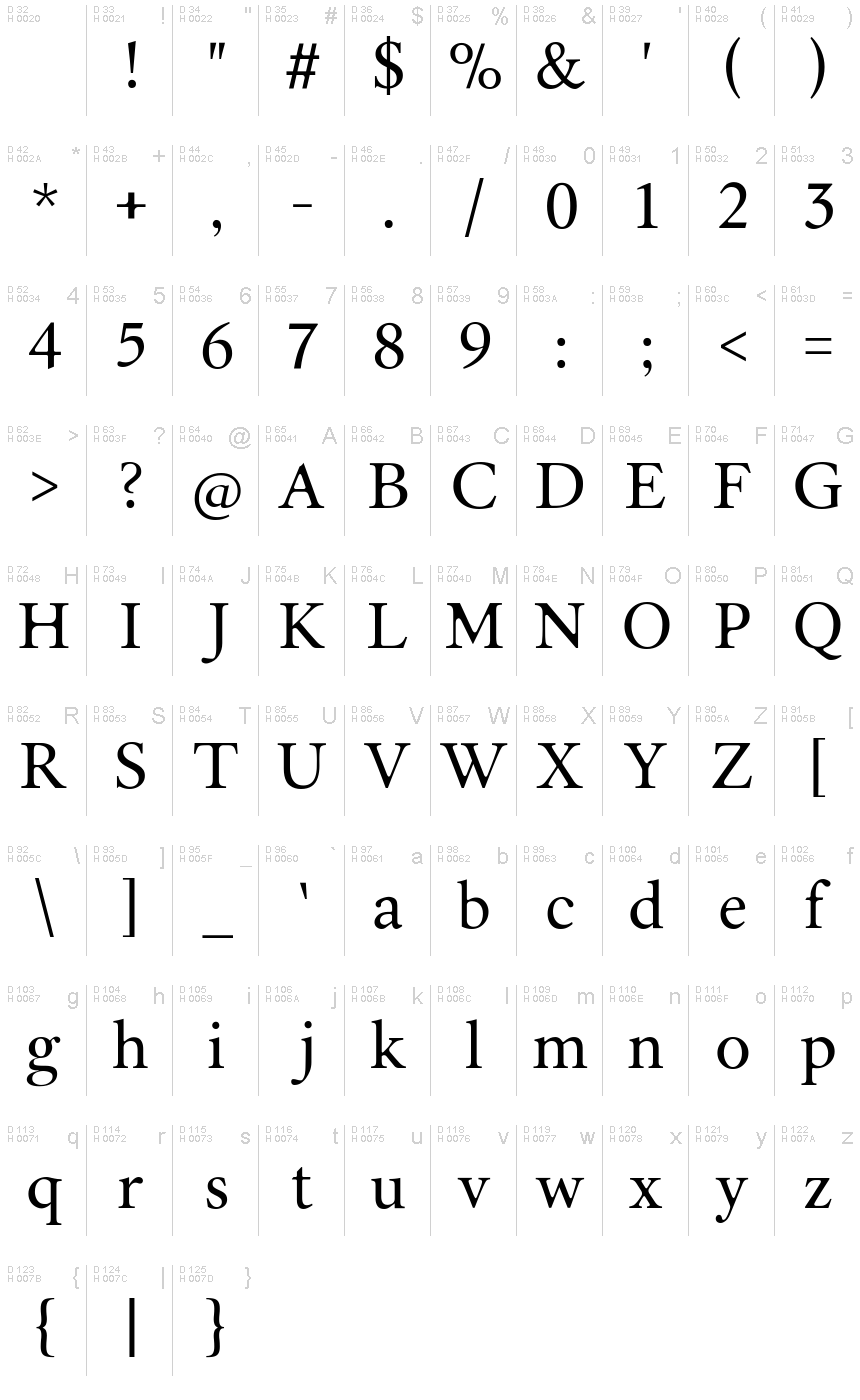
Somer
Somer, a captivating serif font designed by FG Studios, exudes a timeless elegance and sophistication. Its refined strokes and graceful curves create a harmonious balance, evoking a sense of understated luxury. The font's distinctive personality shines through in its subtle contrasts and meticulously crafted details, making it a versatile choice for a wide range of design applications.
Somer's versatility allows it to seamlessly adapt to various contexts, from high-end editorial layouts to elegant branding and packaging designs. Its classic aesthetic lends an air of sophistication and timelessness to any project, making it an excellent option for creating a visually striking and memorable impression.